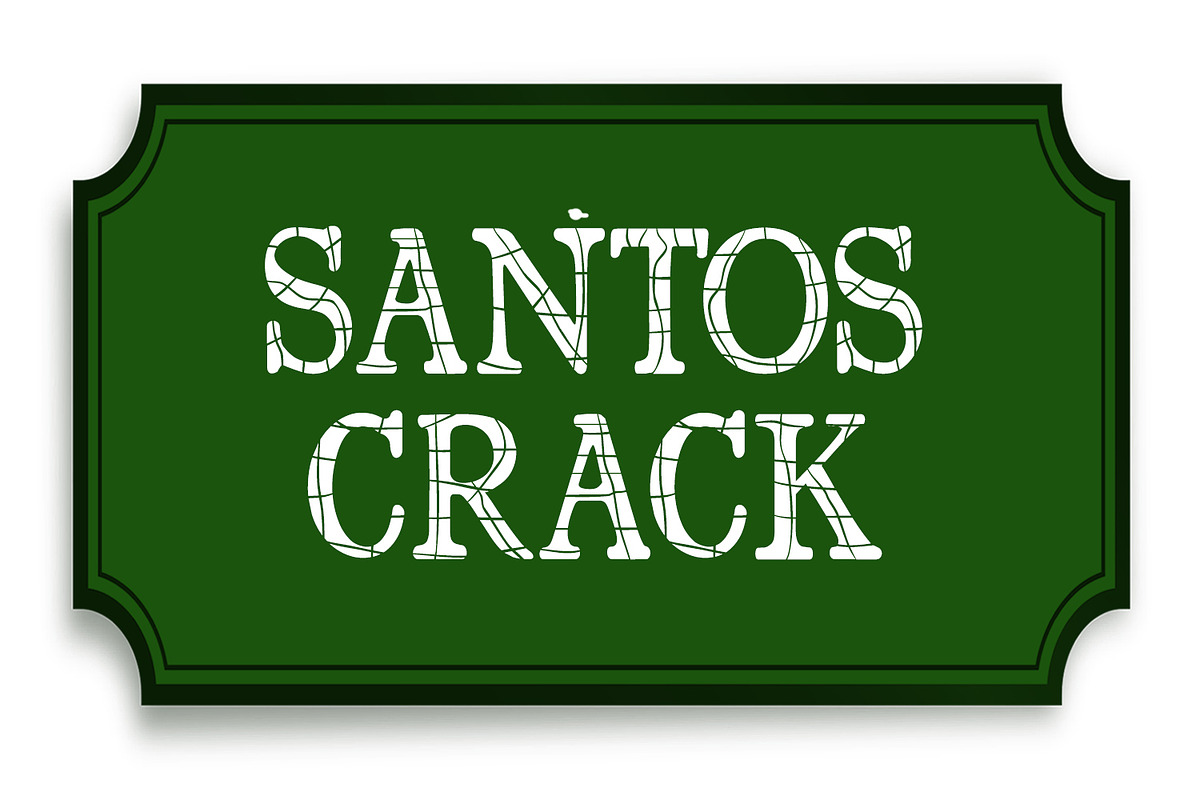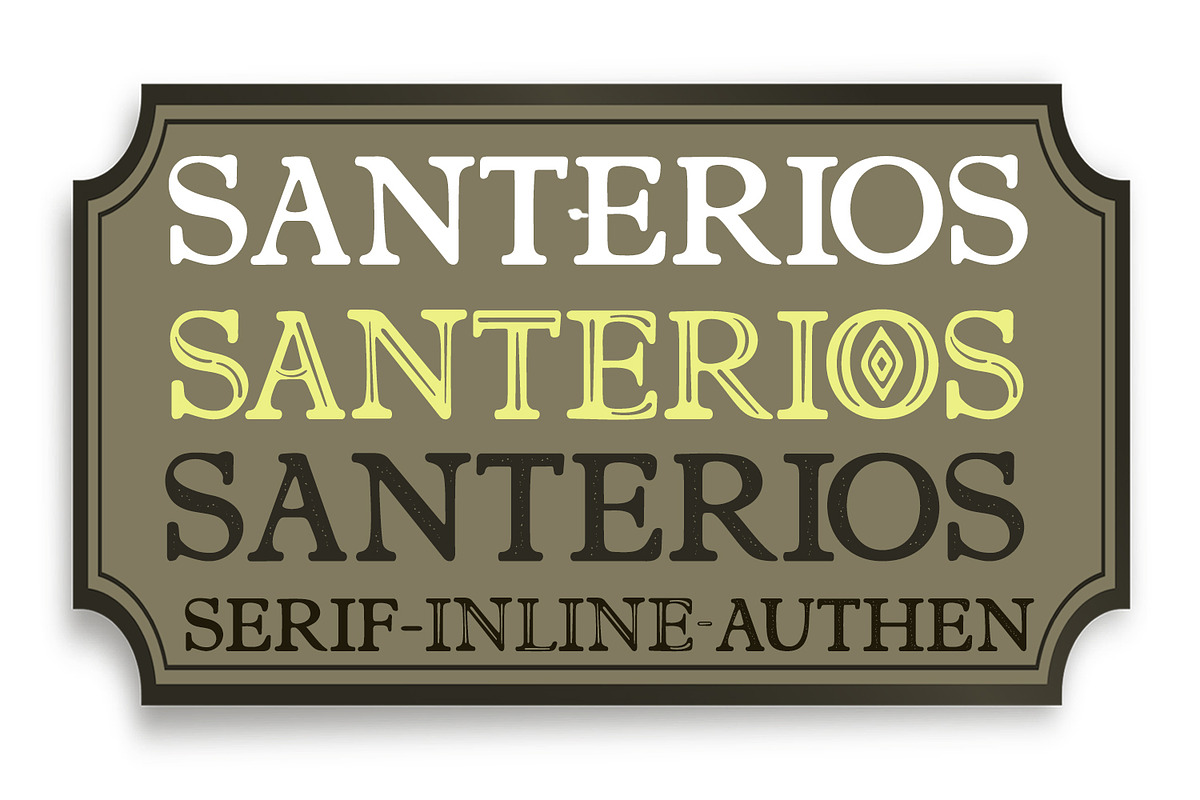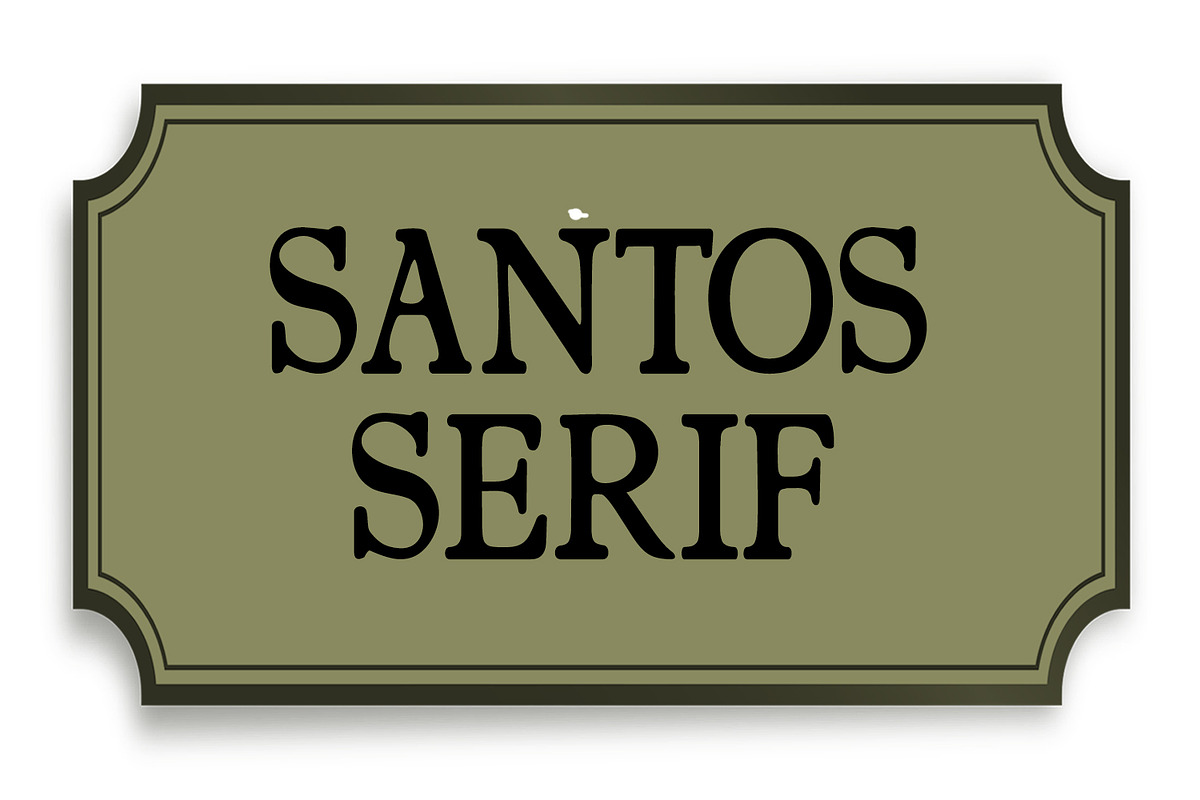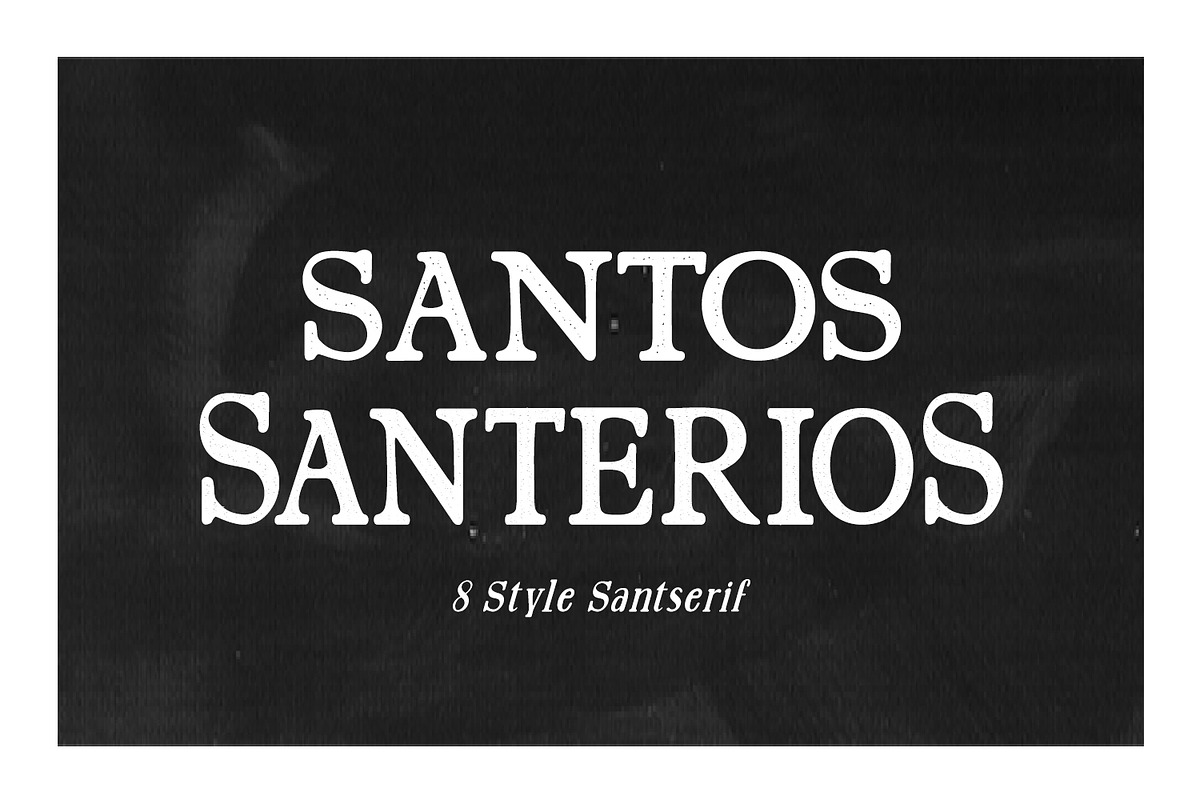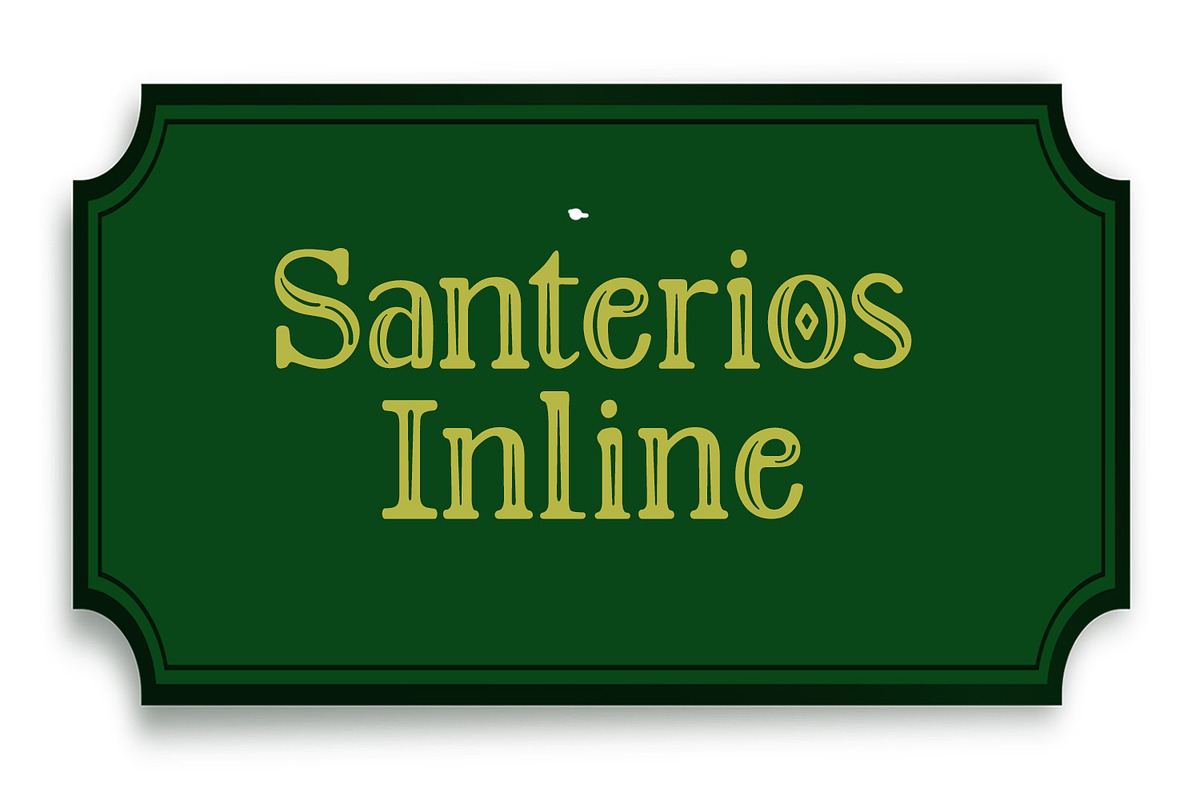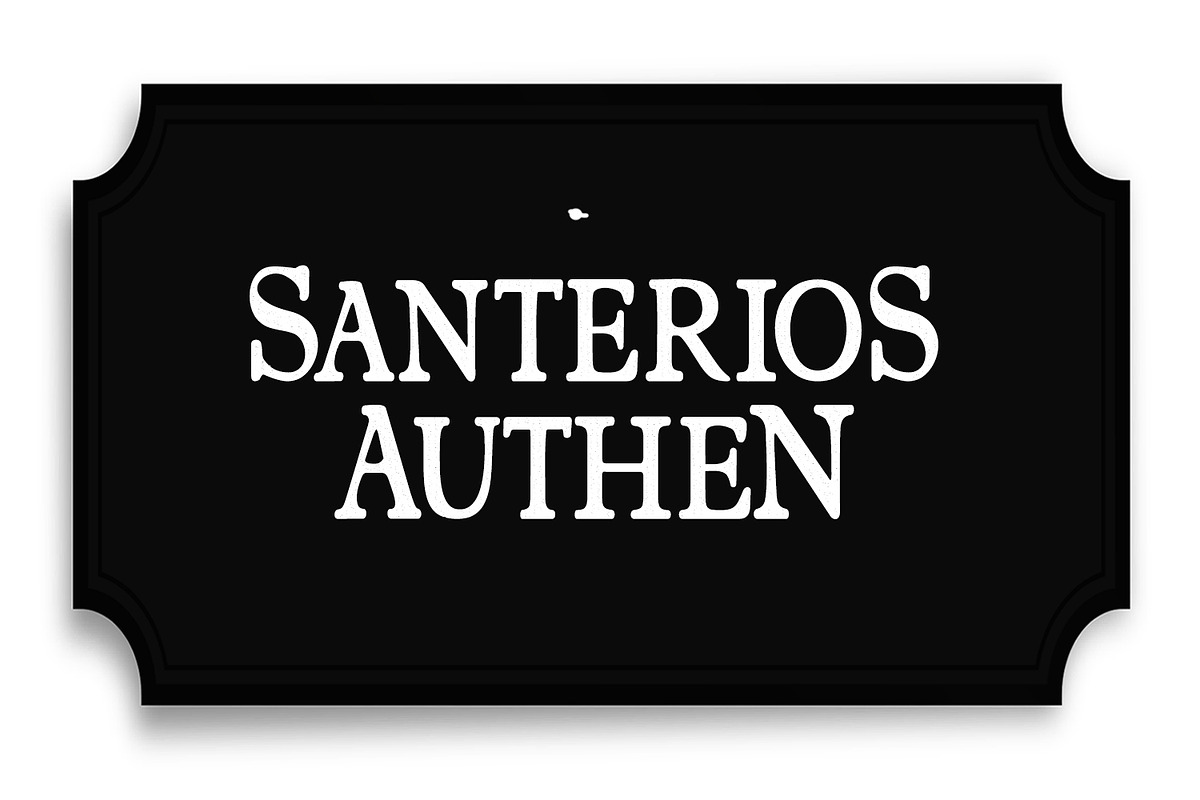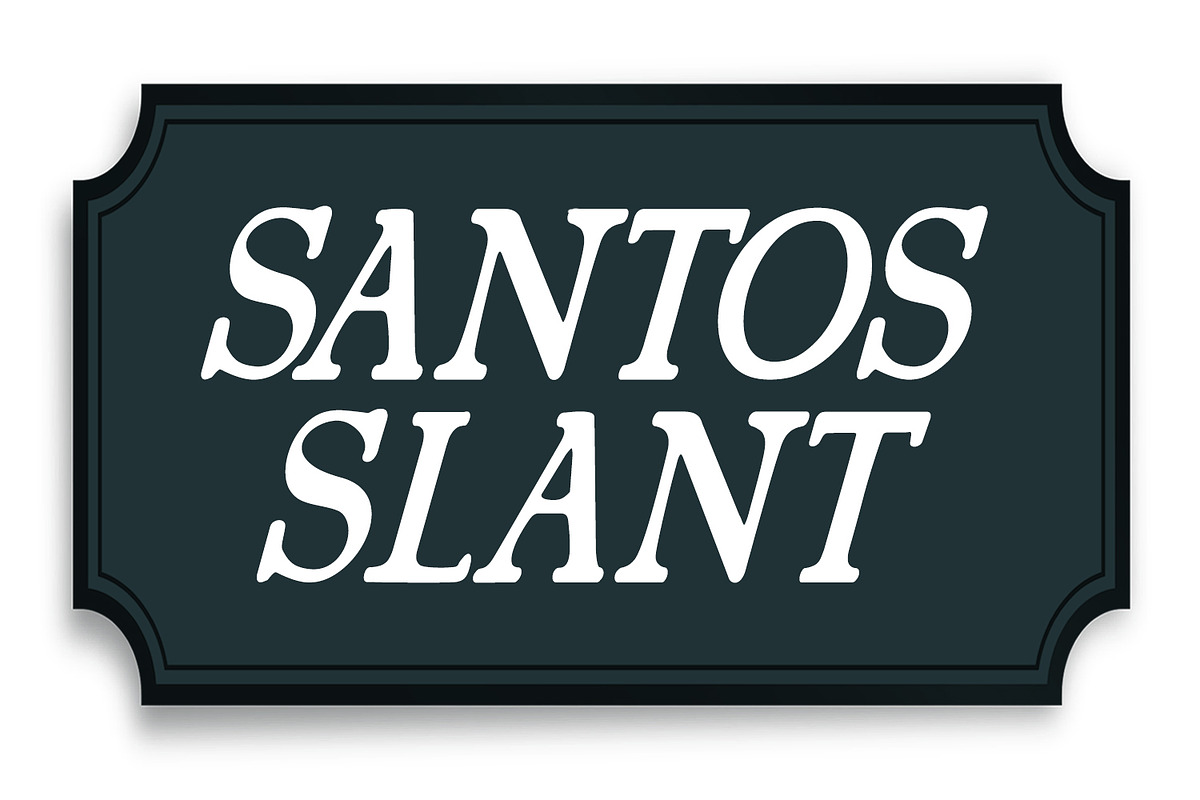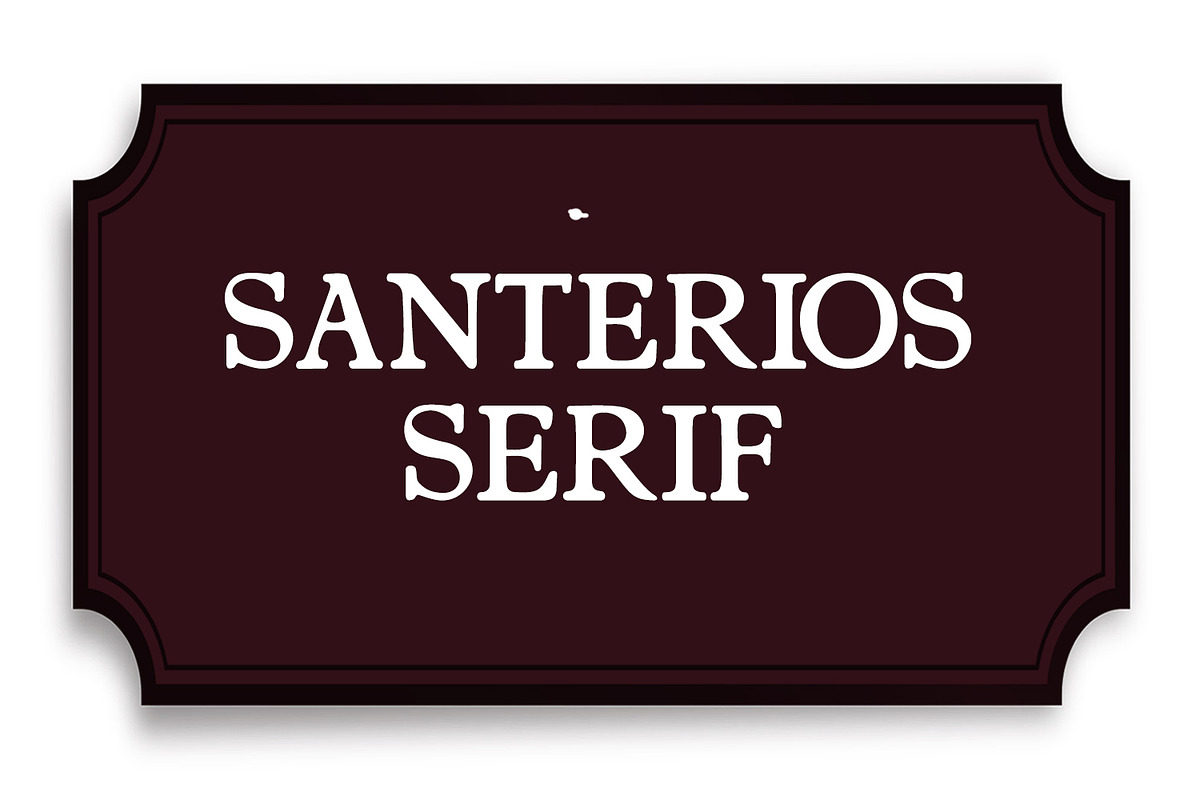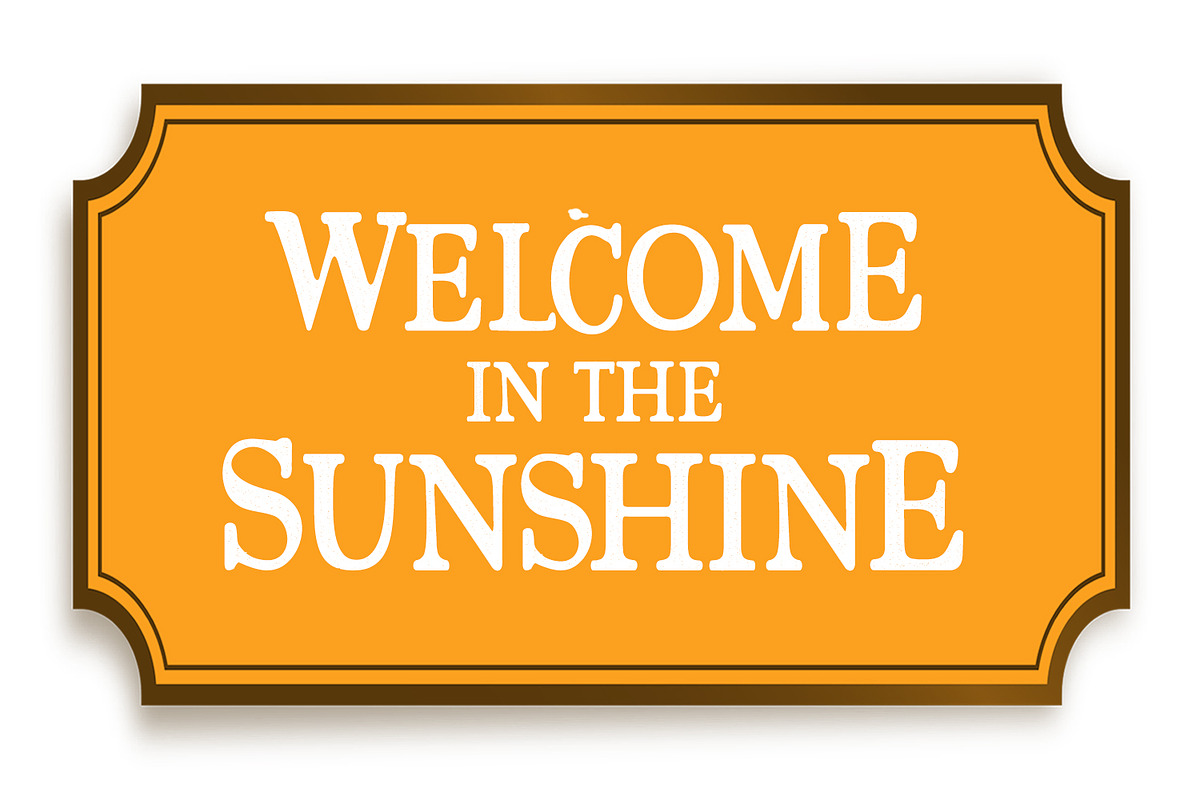
ntroducing artificial Santerios Serif Font & Santos Serif typeface is this is a parallel, done entirely by hand, with a modern style, classic, display typography, handmade.vintage, roomates retro typography style that combines the classic with the modern style handlettering, the majority in small letters with some variations 8 styles fly pleasant..and complemented by remarkable models with a variety of styles you like.
This is the starting point for creating beautiful things. Santerios existing Serif & Serif font Santos smart and perfect. expressive beautiful in your design style. Hopefully with this font you can create a quote or make a logo. Making things beautiful or celebrate your special moments, things are very proud to support your efforts,